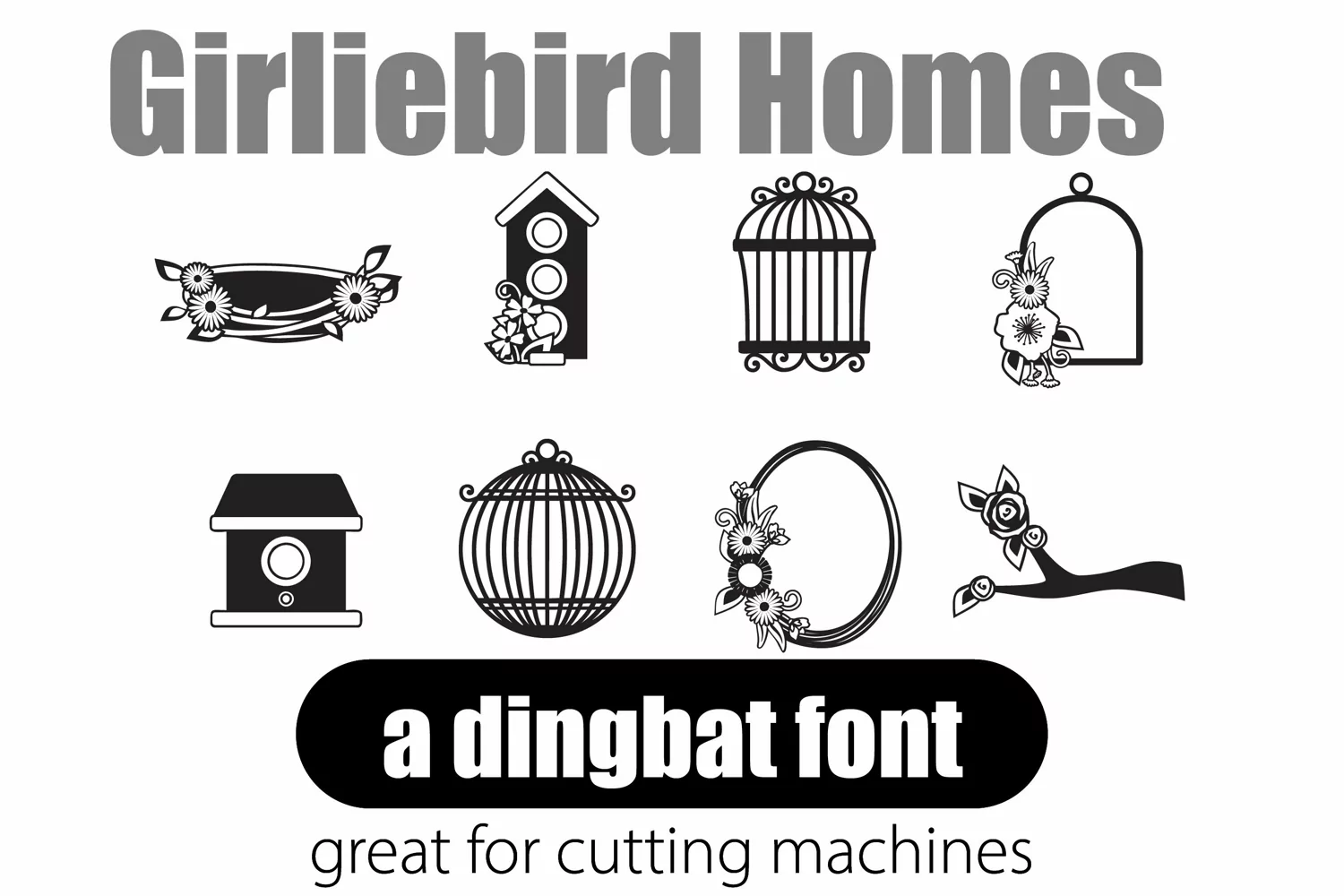
There are two dingbat fonts in this Girliebird bundle. One has 26 birds and the other has birdhouses. Each has at least 26 glyphs. Perfect for vinyl and cutting machines!